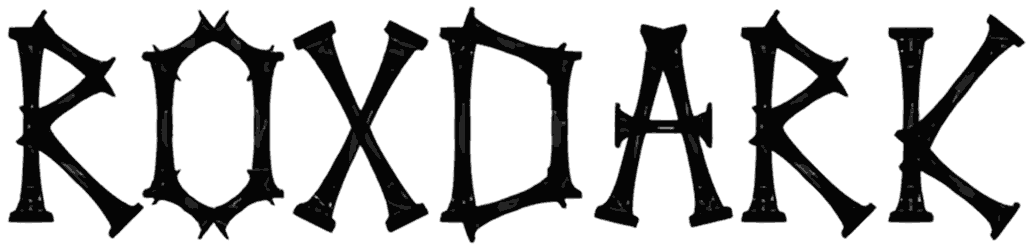
Roxdark Font
Are you looking for a stunning font to enhance your horror projects? Roxdark can become your strong point. This satanic font has blades that give it a spooky accent and will successfully attract viewers who love scary writing.
So, if you want to be different from your competitors this Halloween, ignore the lack of lowercase letters and some numbers and start the Roxdark engine to get on the road to success.